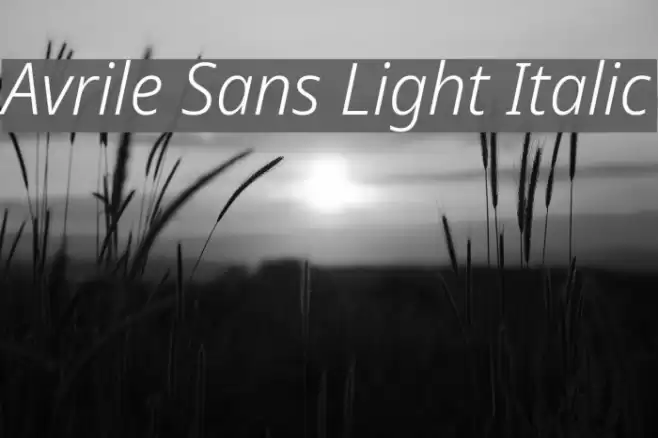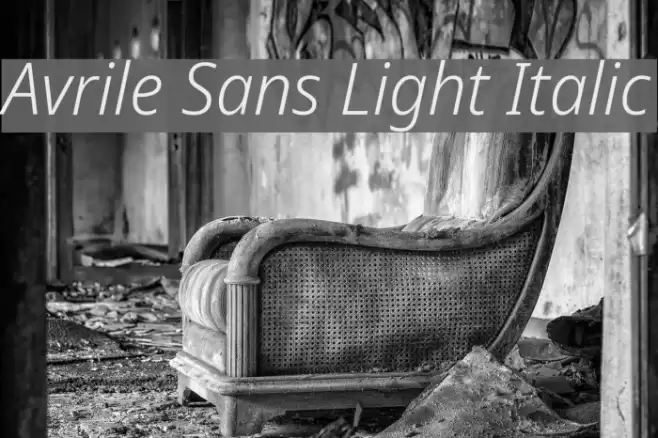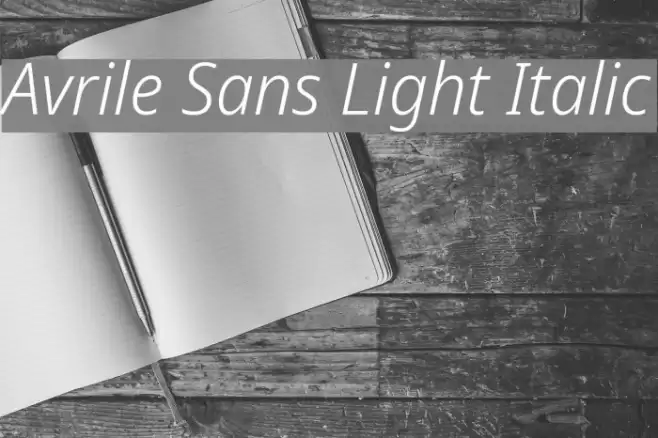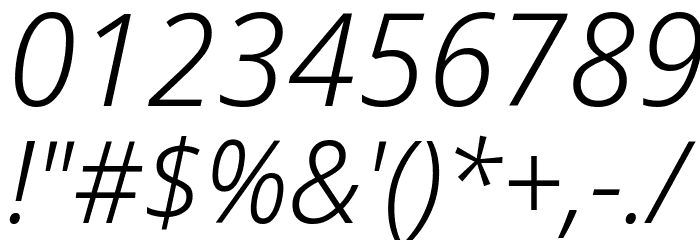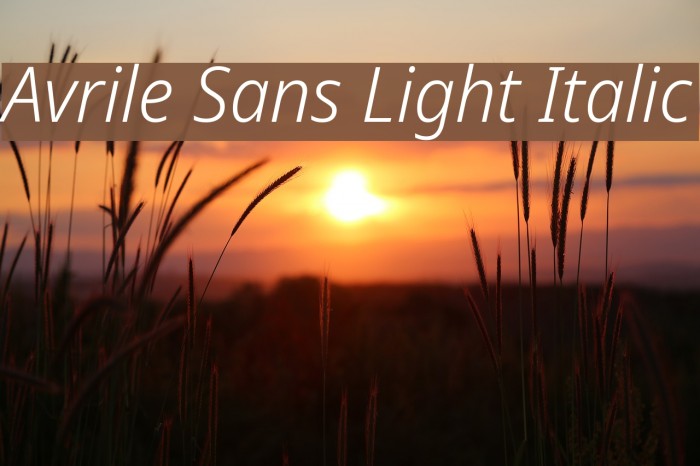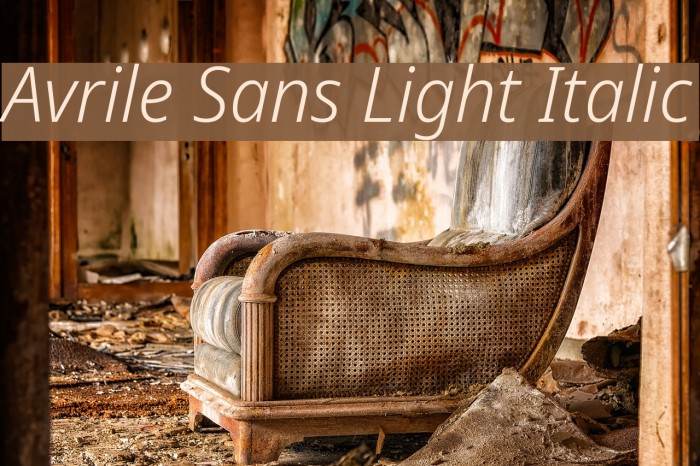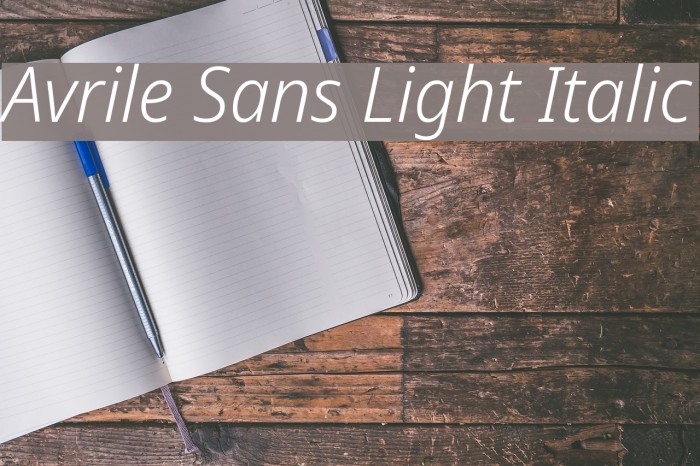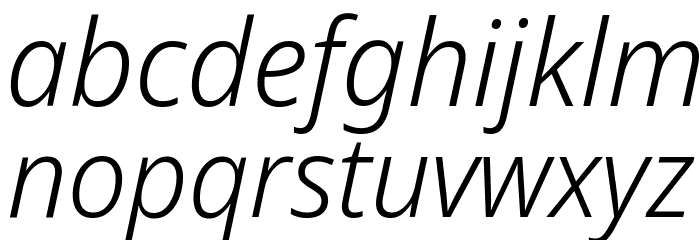
Avrile Sans Light Italic Font
Avrile Sans Light Italic Description
This font features a sleek and modern sans-serif style with a light weight and italicized form. The characters are elegantly crafted with a slight slant, giving it a dynamic and fluid appearance. The strokes are consistent, with a low contrast in thickness, contributing to its clean and minimalist aesthetic. The spacing between characters is normal, ensuring readability while maintaining a sophisticated look. This font is versatile, suitable for a variety of design projects that require a contemporary and stylish touch.
A sleek, modern sans-serif font with light weight and italic style from Uncategorized fonts.